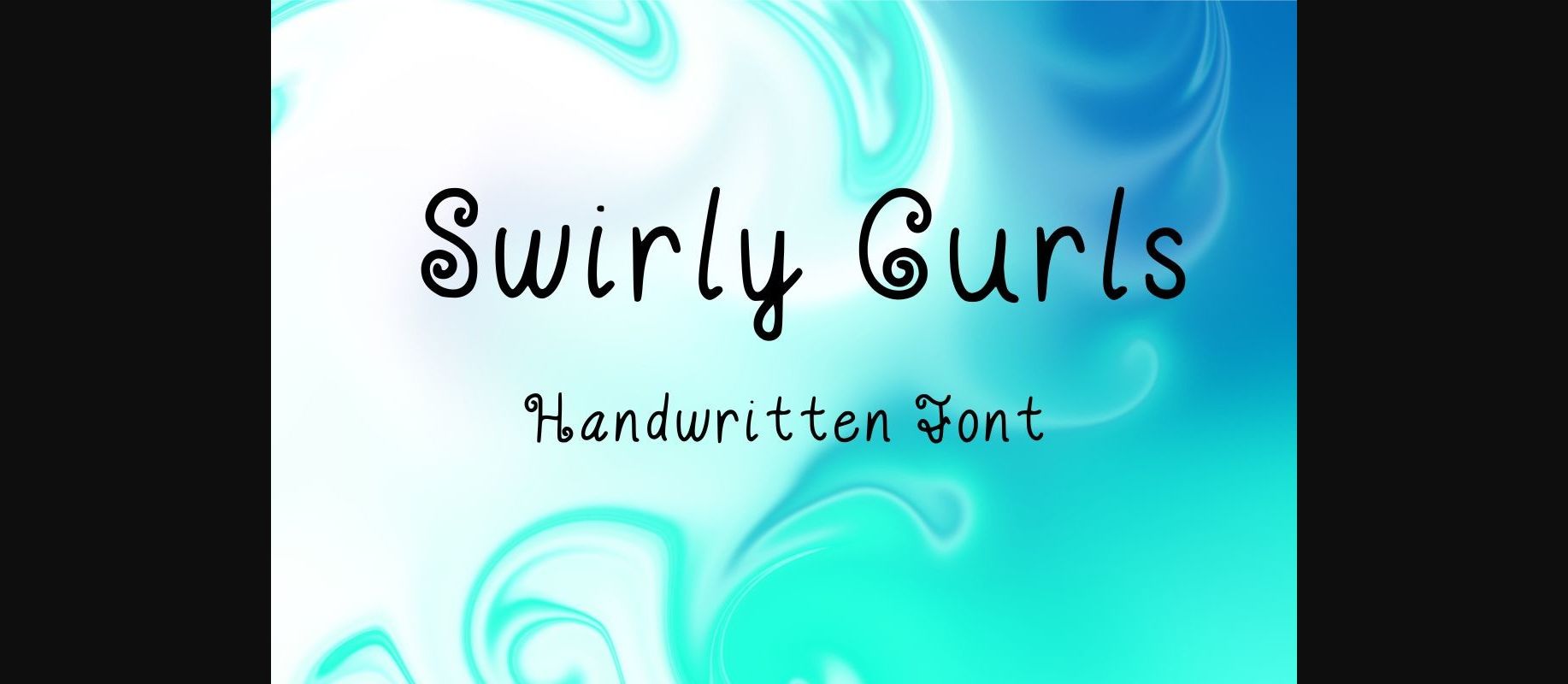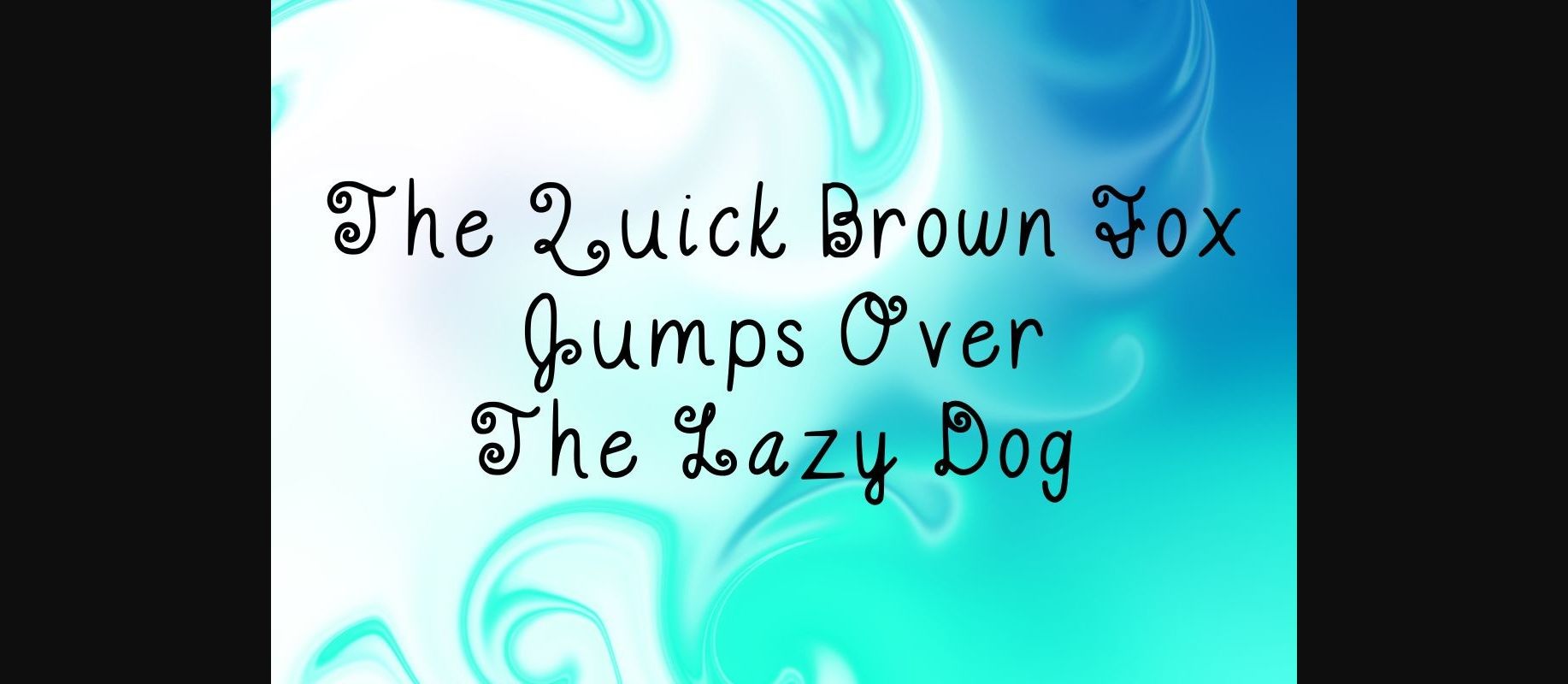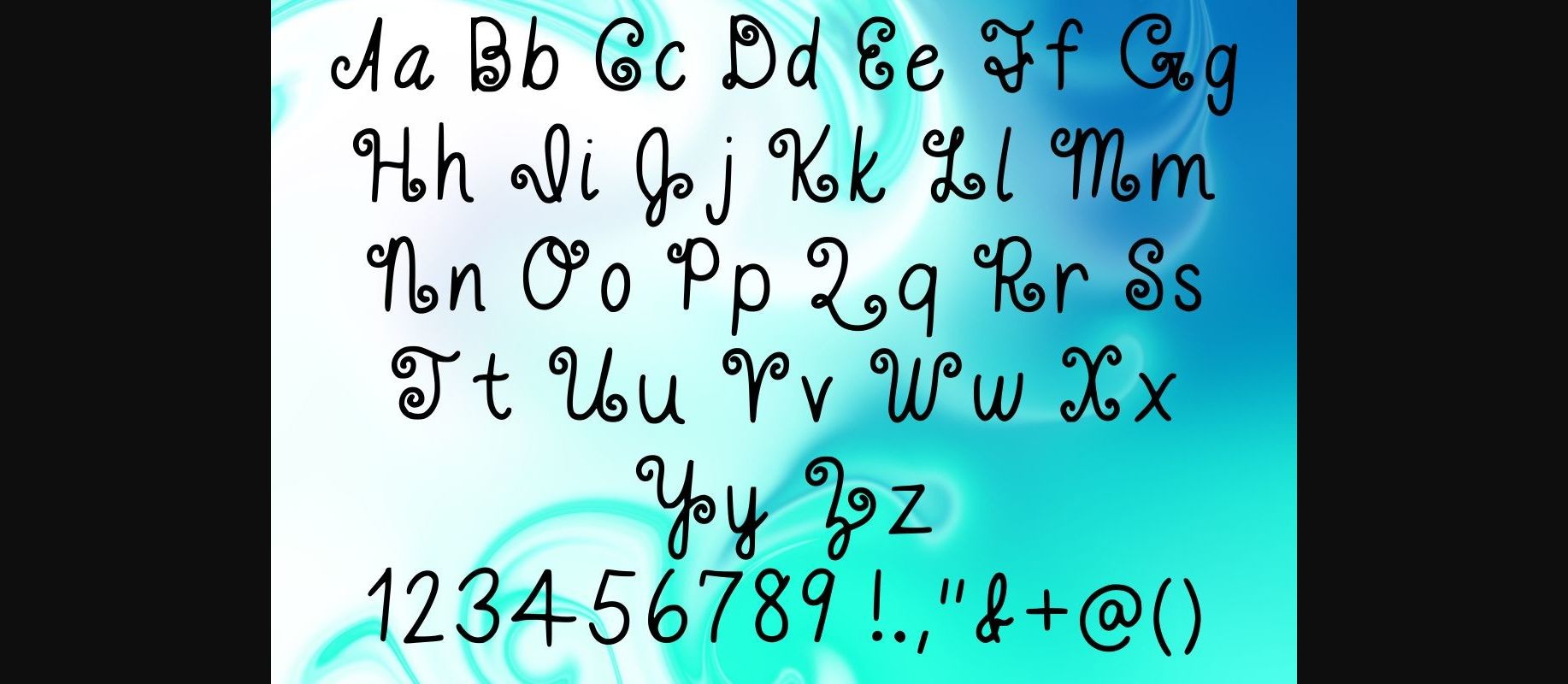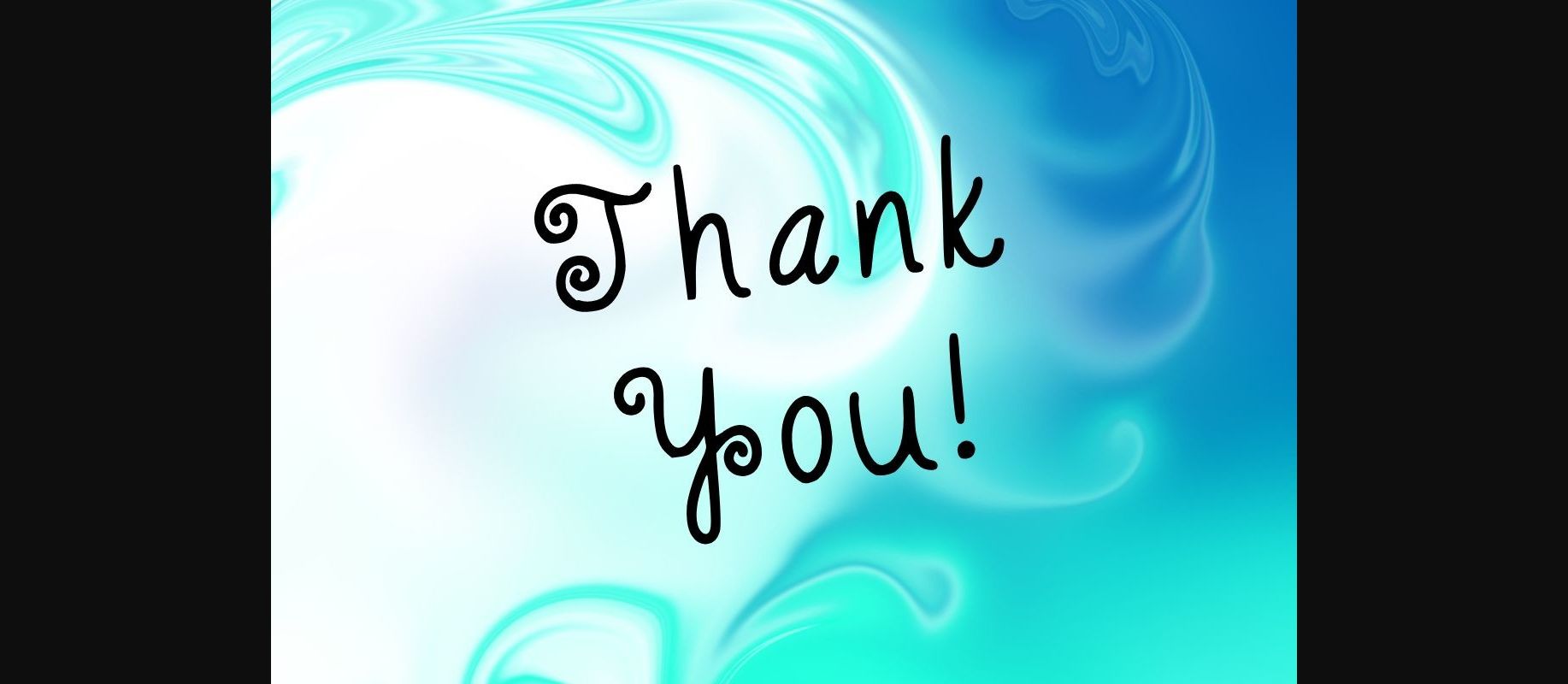
HomeDecorative FontsSwirly Curls Font Decorative Fonts Swirly Curls Font FacebookXPinterestWhatsApp 1 of 6 ... Swirly Curls Font Poster 2... Swirly Curls Font Poster 3... Swirly Curls Font Poster 4... Swirly Curls Font Poster 5... Swirly Curls Font Poster 6... About Swirly Curls Font Swirly curls is a whimsical font that will bring a playfulness to your project. It contains cursive uppercase letters and semi-cursive lowercase letters. DOWNLOAD NOW People also explored DeKunst Font Hey Babe Font Ruottey Font Maulidya Font Chorustyle Duo Font Smoothie Milky Font Colette Font Lemon Juice Font Planner Font 309 0 TagsSwirly Curls Font Previous articleMonogram Cadacia Floral FontNext articleMonster Drip Font LEAVE A REPLY Cancel reply Comment: Please enter your comment! Name:* Please enter your name here Email:* You have entered an incorrect email address! Please enter your email address here Website: Save my name, email, and website in this browser for the next time I comment. Personal Use Free Gila Personal Use Free Read more about this font Houstonville Personal Use Free Read more about this font Starter Personal Use Free Read more about this font Rafika Personal Use Free Read more about this font BLOG How to Install and Use Fonts on Windows, macOS, and Web Projects How to Install and Use Fonts on Windows, macOS, and Web Projects Fonts are a crucial part of design and branding. Whether you’re designing a... Transform Your Website: Elevate Your Typography with 7 Best Web Font Generators Modern Sans-Serif Fonts That Brands Love in 2025 Best Fonts for T-Shirt Design – Top 2025 Picks